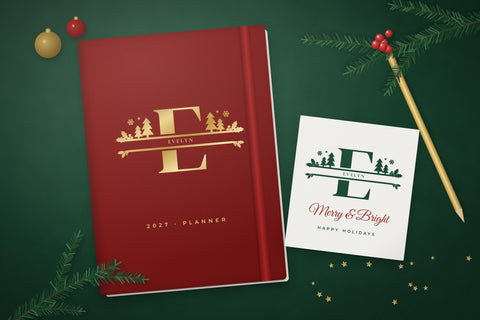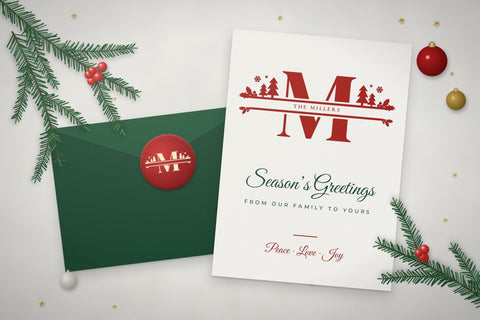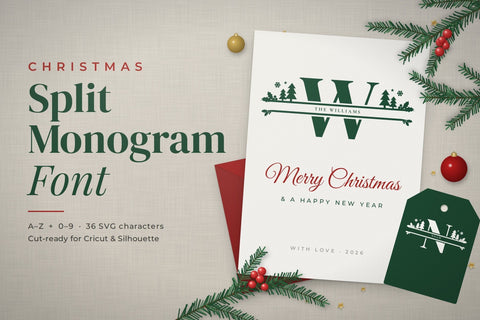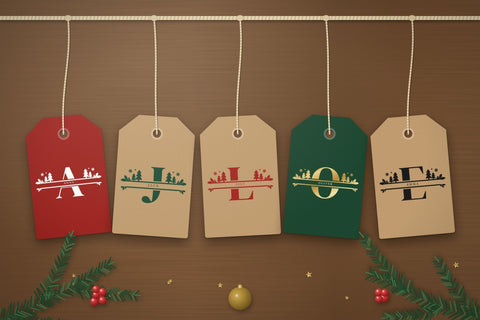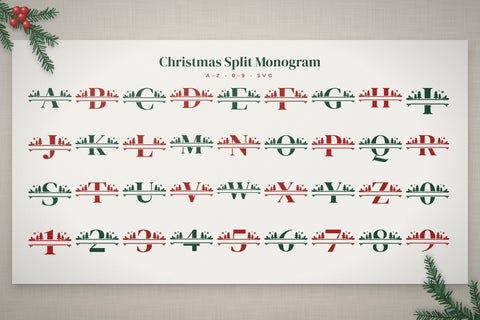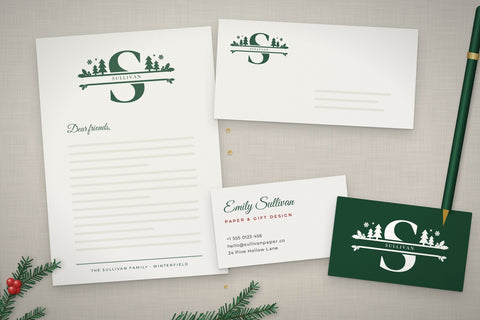
Christmas Split Monogram Font
Christmas Split Monogram is a festive decorative font that creates beautiful split monograms with a single keystroke. Every character is split through the middle, leaving a clean space for a family name, initials or a short greeting. Each one is trimmed with pine trees, holly leaves, berries, snowflakes and stars.
CHARACTER SET
- Uppercase A–Z
- Numbers 0–9